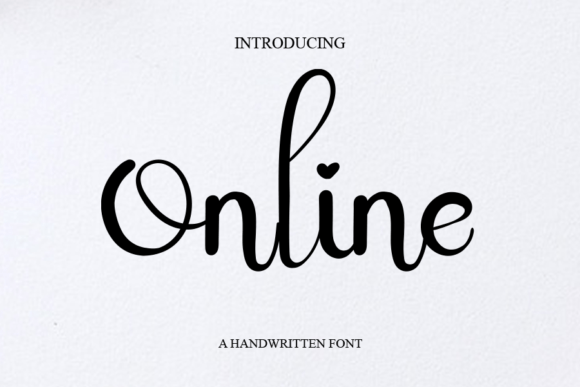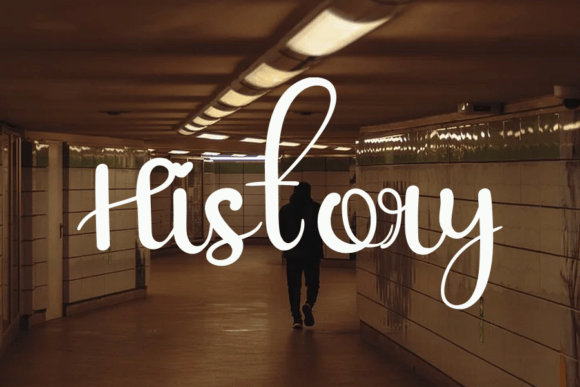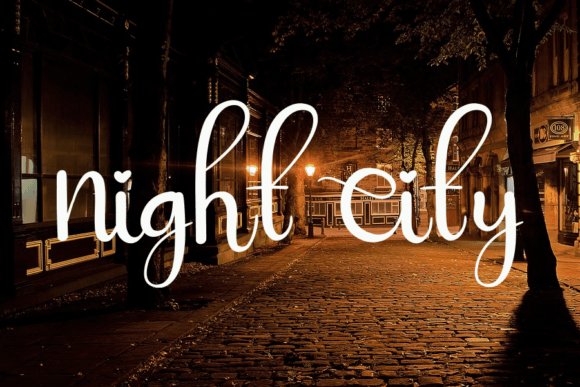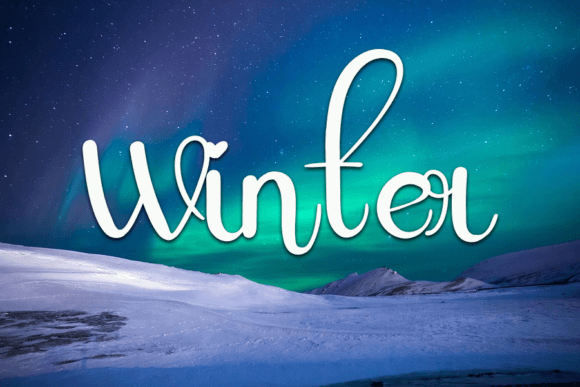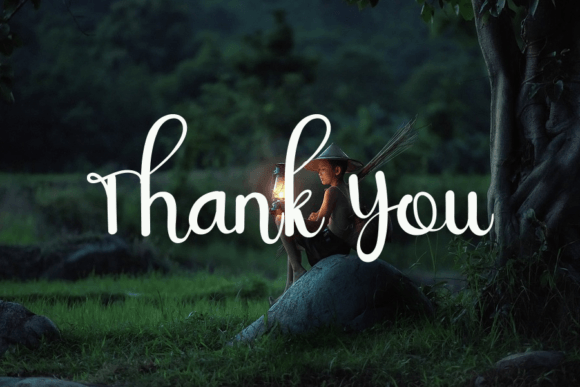
Online Font
Online Handwritten Font – Stylish and Smooth Typeface
The Online Handwritten Font is a modern and elegant script typeface designed to bring sophistication and charm to your projects. With its smooth handwritten strokes and graceful curves, it adds personality and professionalism to any design. Whether you are working on crafts, social media posts, or invitations, this font helps your work stand out with style.
A Script Font with Elegance
The Online Handwritten Font blends balanced handwritten shapes with polished proportions, creating a look that is stylish and highly readable. Its flowing strokes provide warmth and creativity, while its clarity ensures usability across both digital and print designs. Because of this, it is a perfect choice for versatile creative projects.
Perfect for Crafts and Greeting Cards
One of the best uses of the Online Handwritten Font is in invitations, posters, and greeting cards. Its stylish strokes add charm to personal projects, making them more expressive and unique. At the same time, it works beautifully for packaging, logos, and branding, giving a professional handwritten look.
The Online Handwritten Font adapts beautifully across various applications. From business cards and product packaging to website headers and social media graphics, it provides a natural handwritten feel that looks stylish in any format. Its versatility ensures it fits both casual and formal design projects.
Why Designers Love Online Font
Designers appreciate the Online HandwrittenFont for its combination of elegance and usability. Its smooth strokes make designs eye-catching, while its clear readability ensures professional results. This balance makes it a reliable choice for creative professionals and hobbyists alike.
In summary, the Online HandwrittenFont is a stylish, smooth, and versatile script typeface. With its graceful handwritten strokes, quick installation, and wide usability, it is perfect for invitations, crafts, posters, and branding. Don’t miss the chance to download Online HandwrittenFont and bring timeless elegance to your projects.